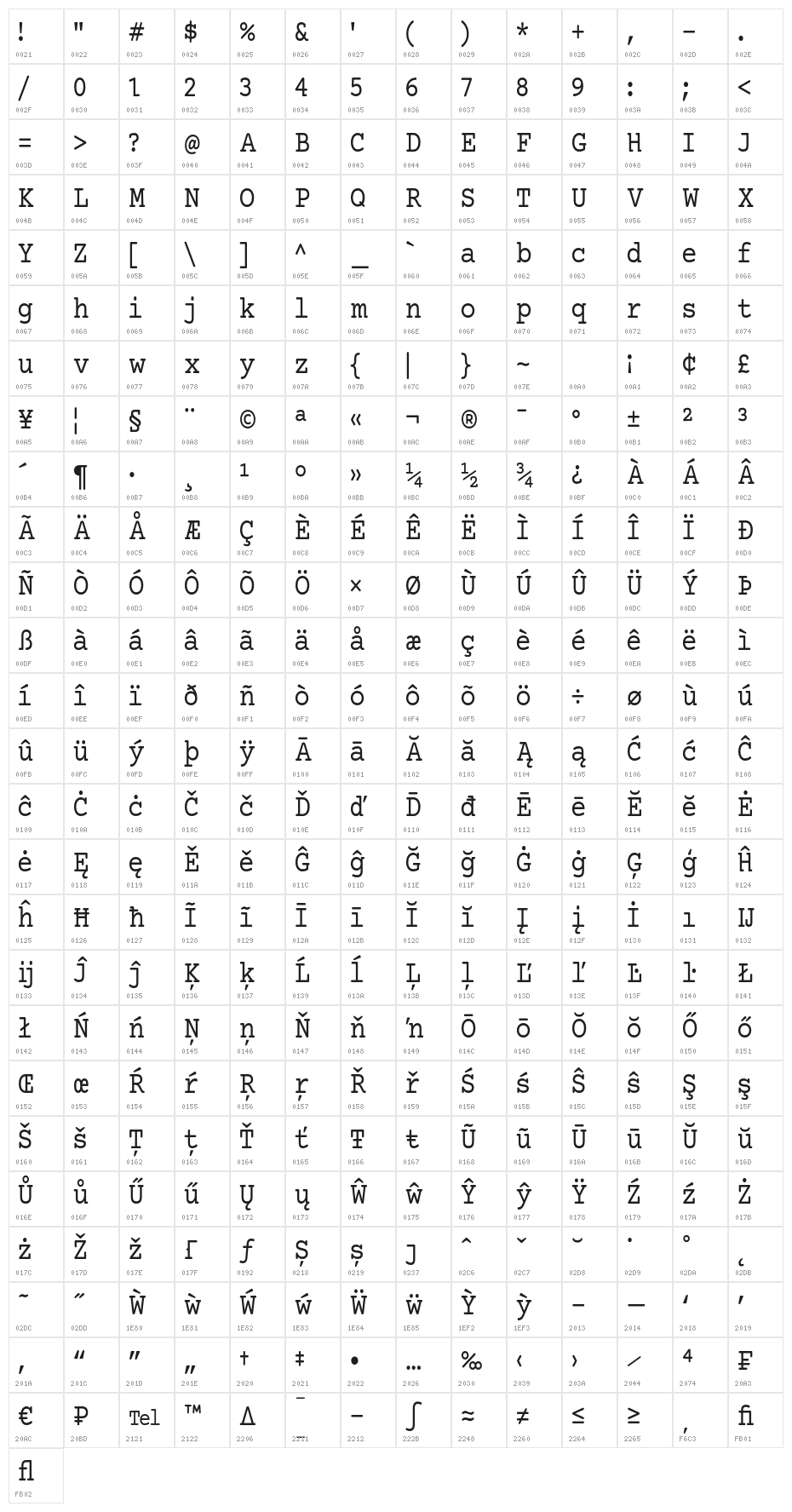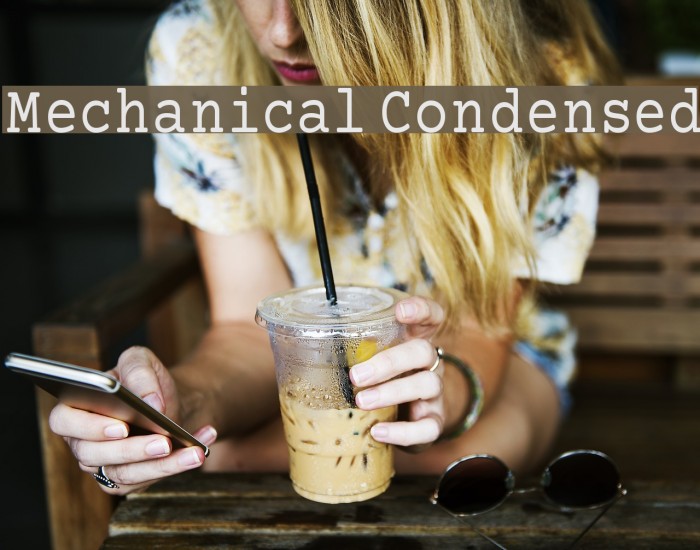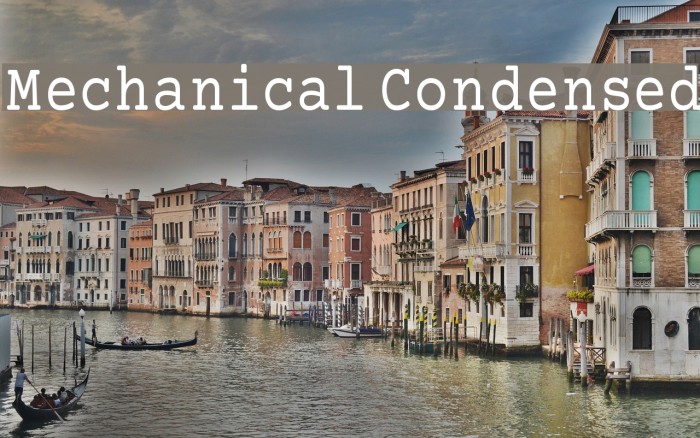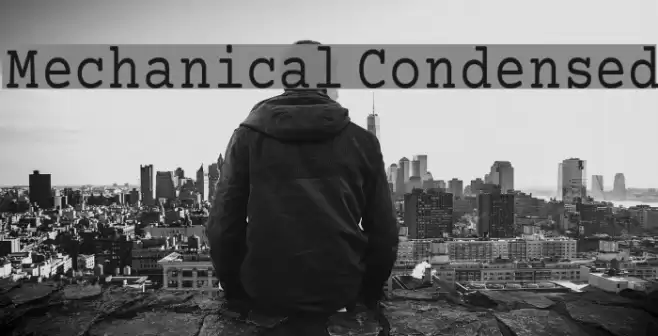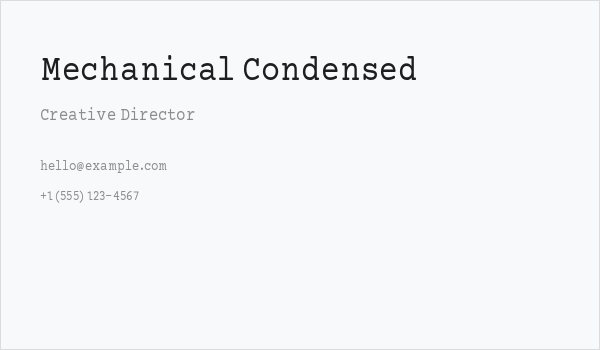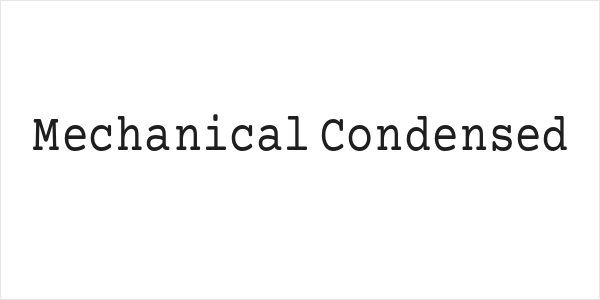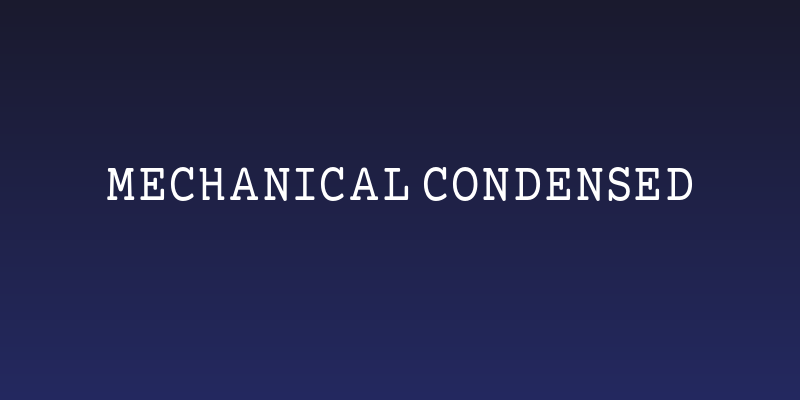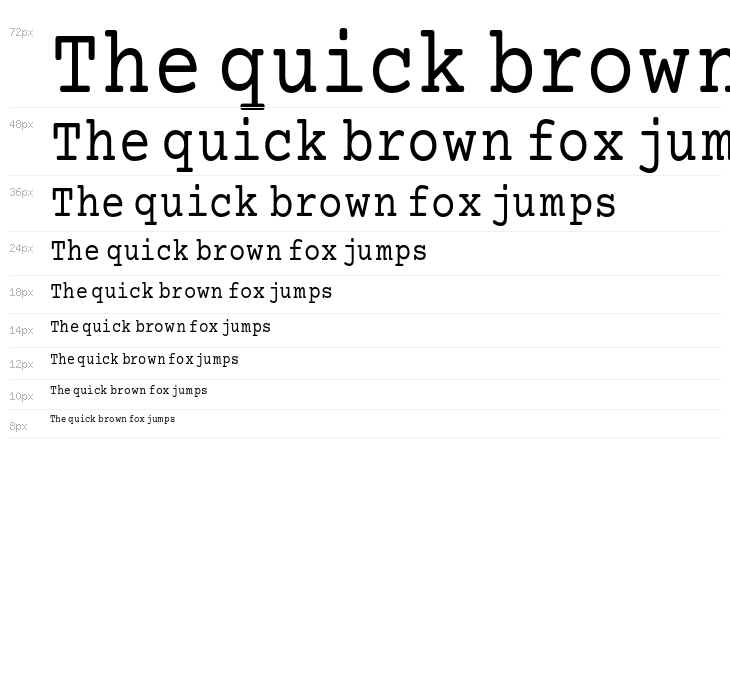
Mechanical Condensed Font
Mechanical Condensed Description
This font features a mechanical and condensed style, characterized by its monospaced letterforms and uniform stroke widths. The uppercase letters are bold and structured, while the lowercase letters maintain a consistent height and spacing, creating a harmonious appearance. The numerals are clear and legible, making them suitable for technical or industrial applications. Special characters are well-defined, enhancing the font's versatility. The overall design is clean and precise, ideal for conveying information in a straightforward manner.
| Use Case | Technical manuals, Coding interfaces, Signage |
| Proposed Projects | Ideal for technical manuals, industrial design projects, coding interfaces, and signage requiring clarity and precision. |